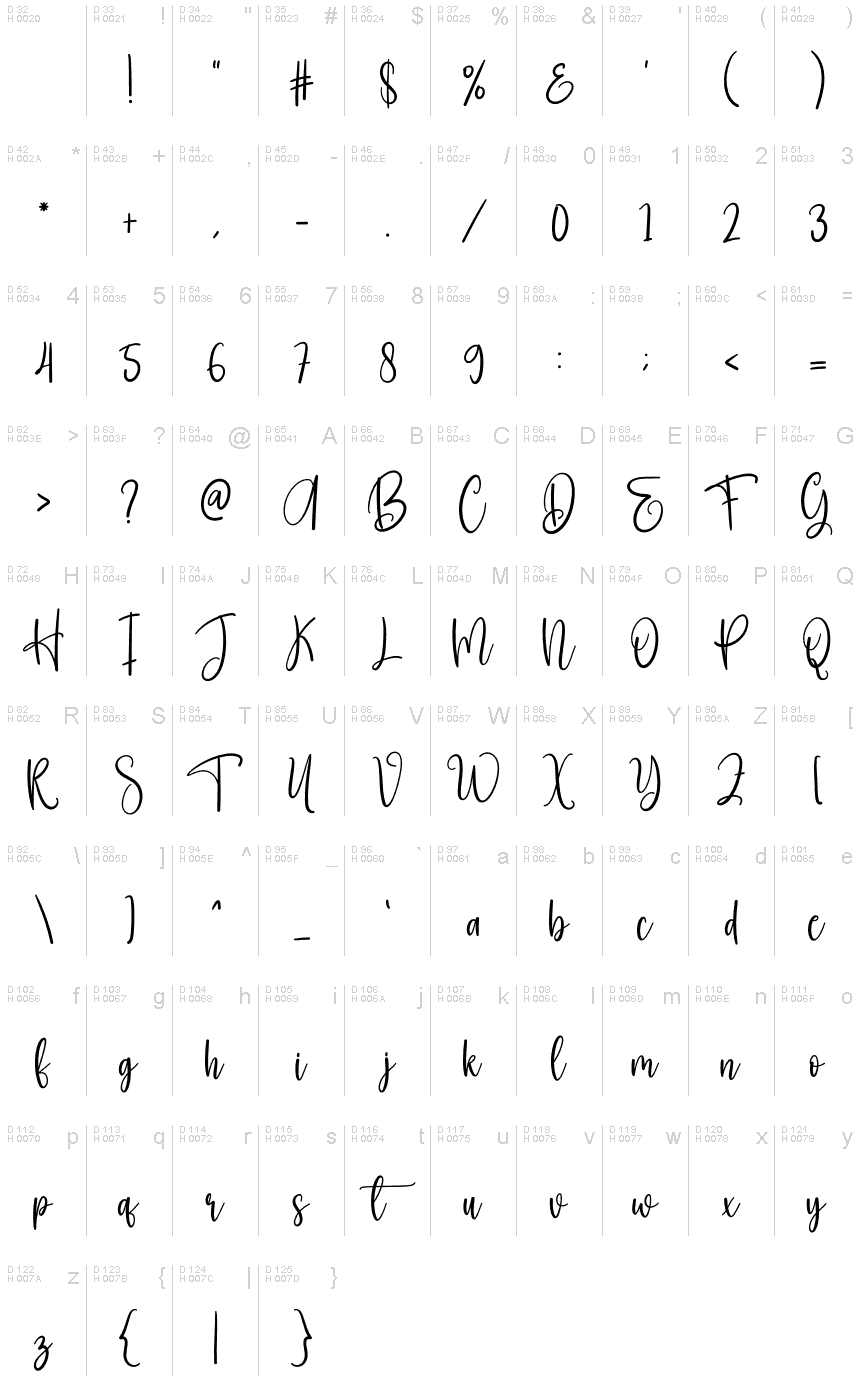
Arabesque
Arabesque is a stunning, hand-drawn font designed by scratchones. With its delicate yet distinctive semi-light weight, this font is perfect for adding an elegant touch to any project. Its intricate, flowing lines bring a sense of sophistication to everything from wedding invitations and greeting cards to branding materials and social media graphics. Use Arabesque to create a unique and memorable look for your next project that will stand out from the crowd. Let your creativity run wild with this beautiful handwritten typeface that's sure to make a lasting impression.
the latest style letters are perfect for wall displays, wedding invitations, social media post logos,
advertisements, product packaging, product designs, labels, photography, watermarks, invitations, stationery,
and any project that requires taste handwriting.